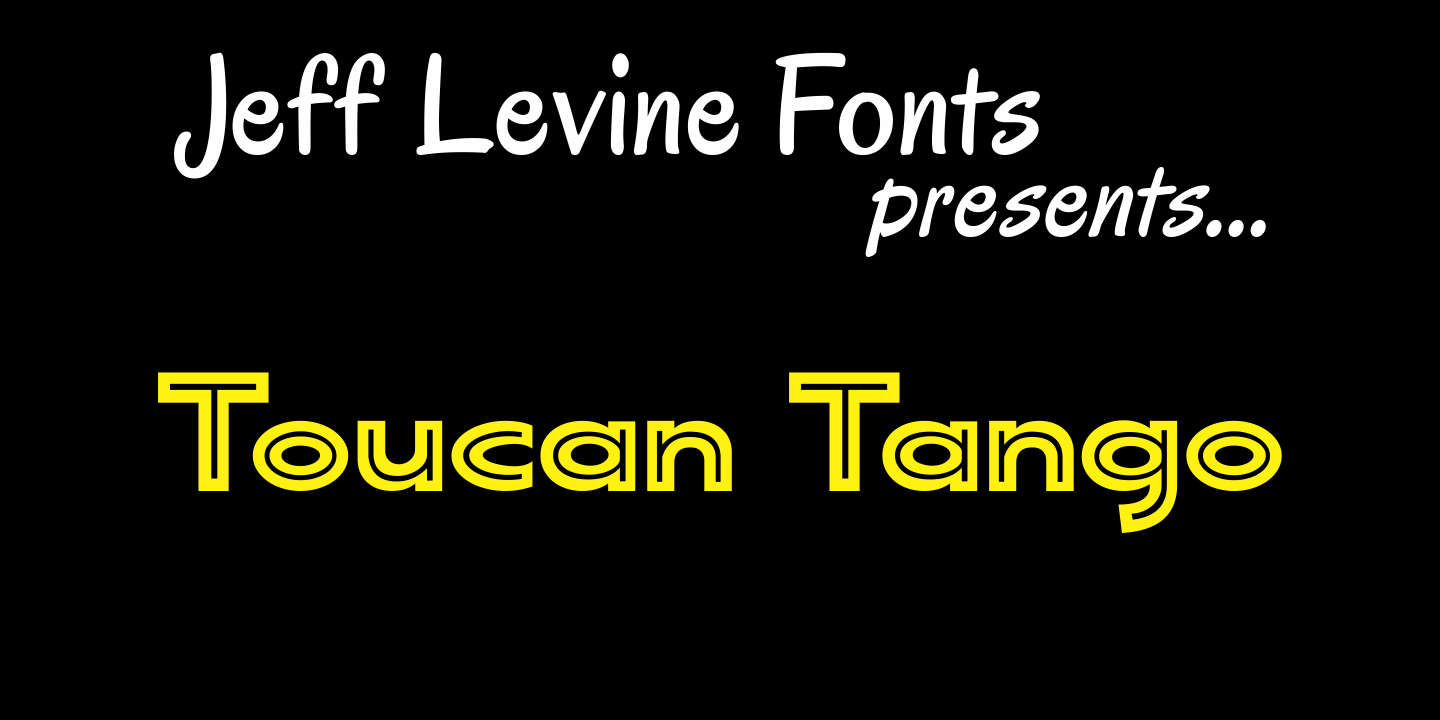
Toucan Tango
In the days before vinyl sign lettering overran the landscape, talented neighborhood sign painters and show card writers made attractive displays for local merchants.
Toucan Tango JNL is Jeff Levine's interpretation of a sign painter's sans serif letter with a distinctive inline.